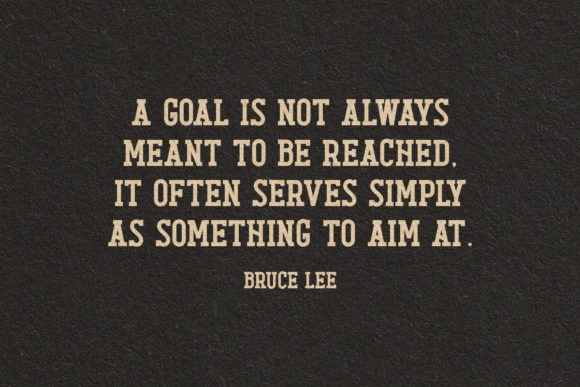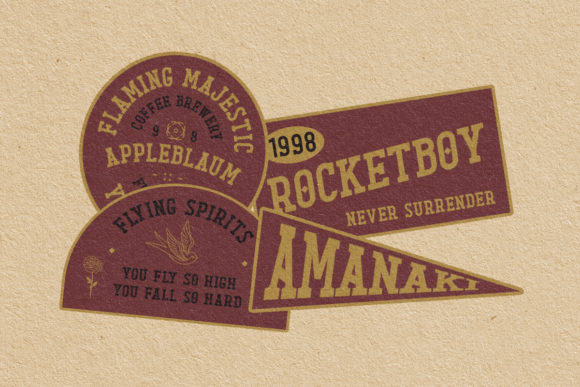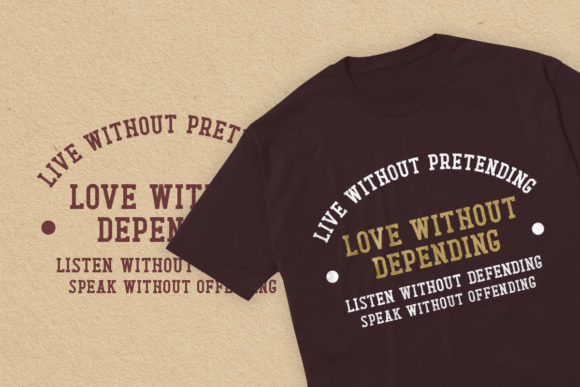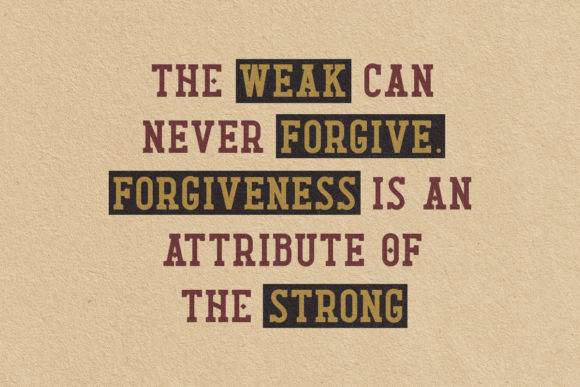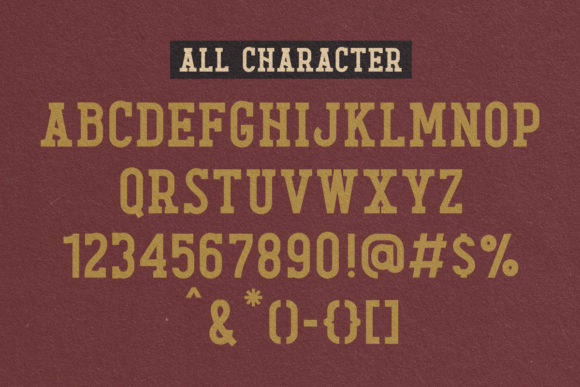
Diamond Lake Font: Elevate Your Designs with Elegance and Boldness
Diamond Lake Font is a stunning serif font that exudes elegance and sophistication. Its versatile style makes it an ideal choice for designers and crafters looking to add a touch of luxury to their creations. Whether you’re designing wedding invitations, stationery art, social media posts, or any other visual project, Diamond Lake Font is sure to impress.
Unleash Your Creativity with Diamond Lake Font
Diamond Lake Font is more than just a font – it’s a design statement. Its bold and elegant serif style makes it perfect for creating visually striking designs that demand attention. With Diamond Lake Font, you can:
- Create breathtaking wedding invitations that set the tone for a luxurious and unforgettable celebration
- Design beautiful stationery art that showcases your brand’s personality and style
- Craft eye-catching social media posts that grab attention and drive engagement
- Develop stunning branding materials, such as logos, business cards, and letterheads
Key Features of Diamond Lake Font
So, what makes Diamond Lake Font so special? Here are some of its key features:
- Elegant Serif Style: Diamond Lake Font boasts a classic serif style that’s both elegant and sophisticated
- Versatile: This font is incredibly versatile, making it suitable for a wide range of design projects
- Bold and Eye-Catching: The bold style of Diamond Lake Font ensures that your designs grab attention and stand out from the crowd
- Easy to Read: Despite its bold style, Diamond Lake Font is easy to read, making it perfect for body text and headlines
Tips for Using Diamond Lake Font
To get the most out of Diamond Lake Font, here are some tips to keep in mind:
- Pair it with a Sans-Serif Font: Pair Diamond Lake Font with a sans-serif font to create a striking contrast and add visual interest to your designs
- Experiment with Colors: Diamond Lake Font looks stunning in a range of colors, from metallic gold and silver to rich jewel tones
- Use it for Headlines and Titles: The bold style of Diamond Lake Font makes it perfect for headlines and titles, but you can also use it for body text for a more dramatic effect
Who Can Benefit from Diamond Lake Font?
Diamond Lake Font is a versatile font that’s suitable for a wide range of designers and crafters, including:
- Wedding Designers: Create stunning wedding invitations, save-the-date cards, and other wedding stationery with Diamond Lake Font
- Graphic Designers: Use Diamond Lake Font to create visually striking branding materials, such as logos, business cards, and letterheads
- Stationery Designers: Design beautiful stationery art, including journals, planners, and greeting cards, with Diamond Lake Font
- Social Media Managers: Craft eye-catching social media posts that grab attention and drive engagement with Diamond Lake Font
Diamond Lake Font is a stunning serif font that’s sure to elevate your designs with its elegant and bold style. Whether you’re a designer, crafter, or DIY enthusiast, this font is an ideal choice for creating visually striking designs that demand attention. With its versatility, ease of use, and range of applications, Diamond Lake Font is a must-have font for anyone looking to add a touch of luxury to their creations.